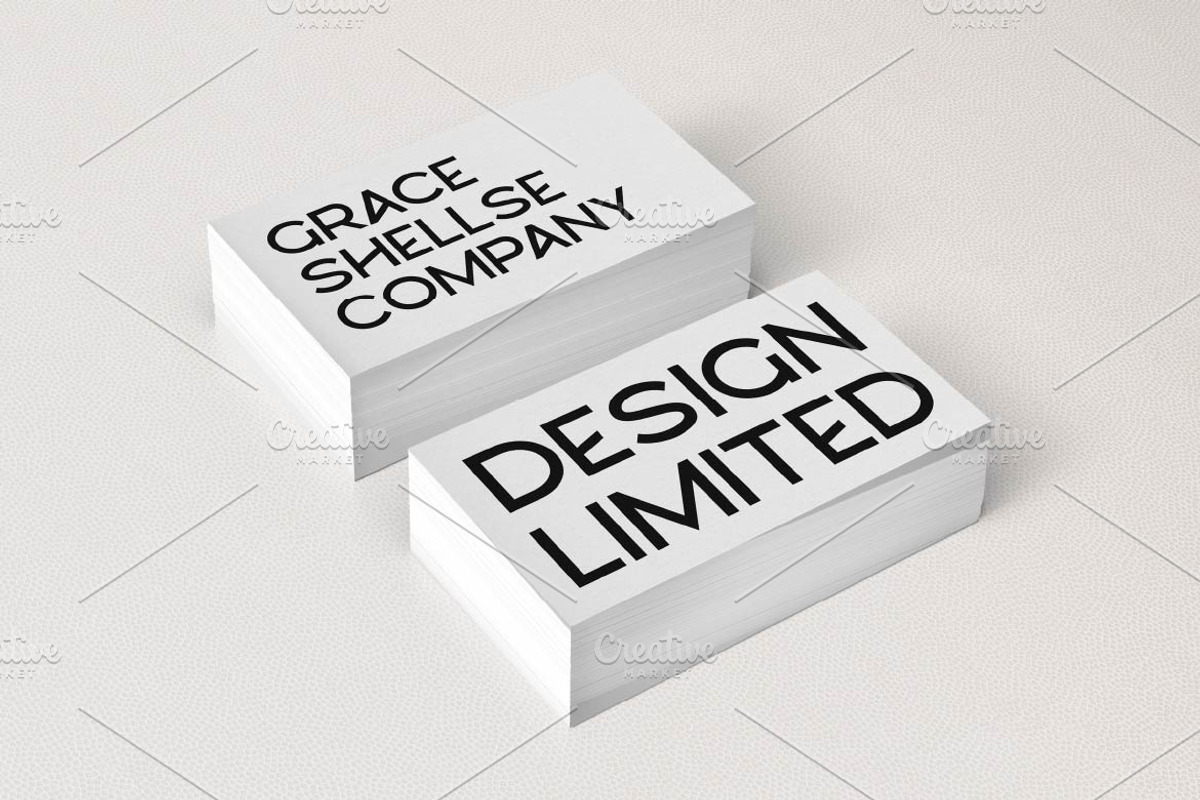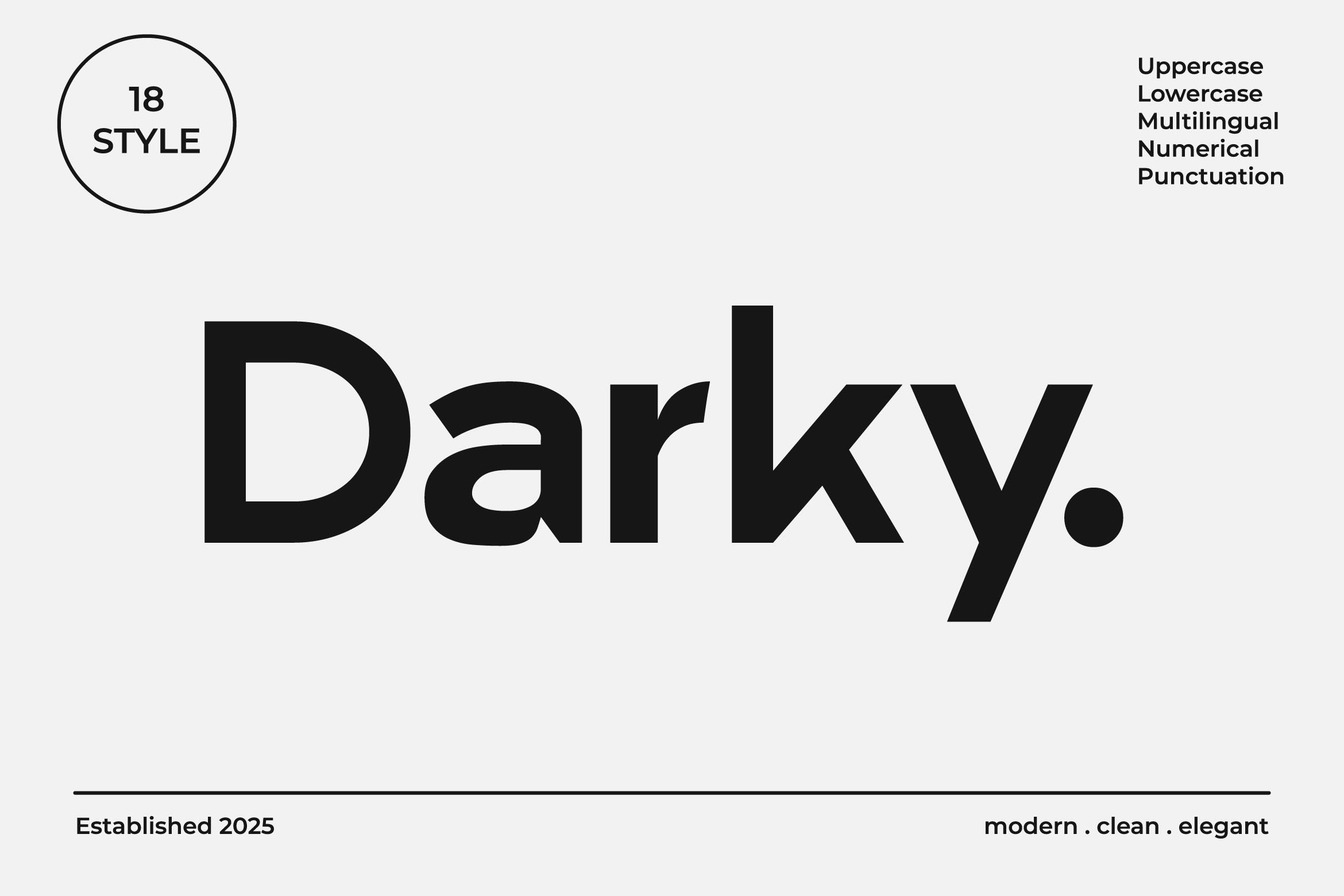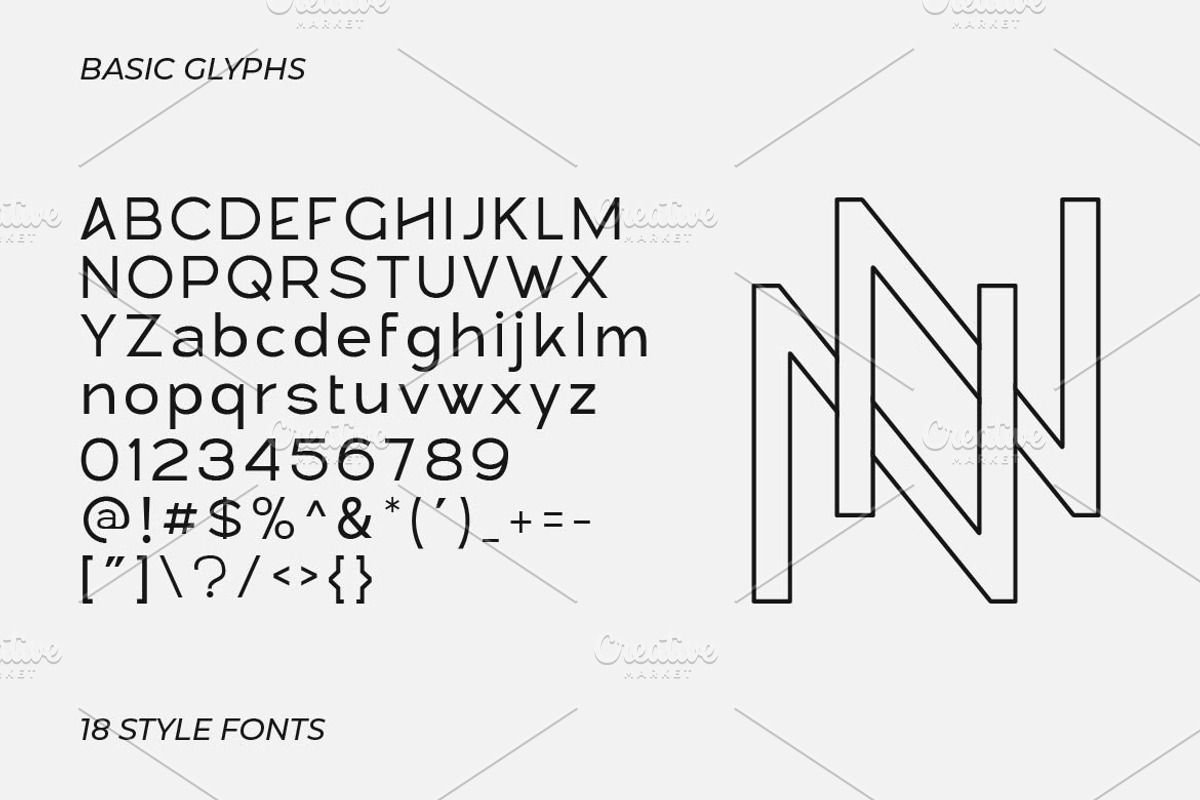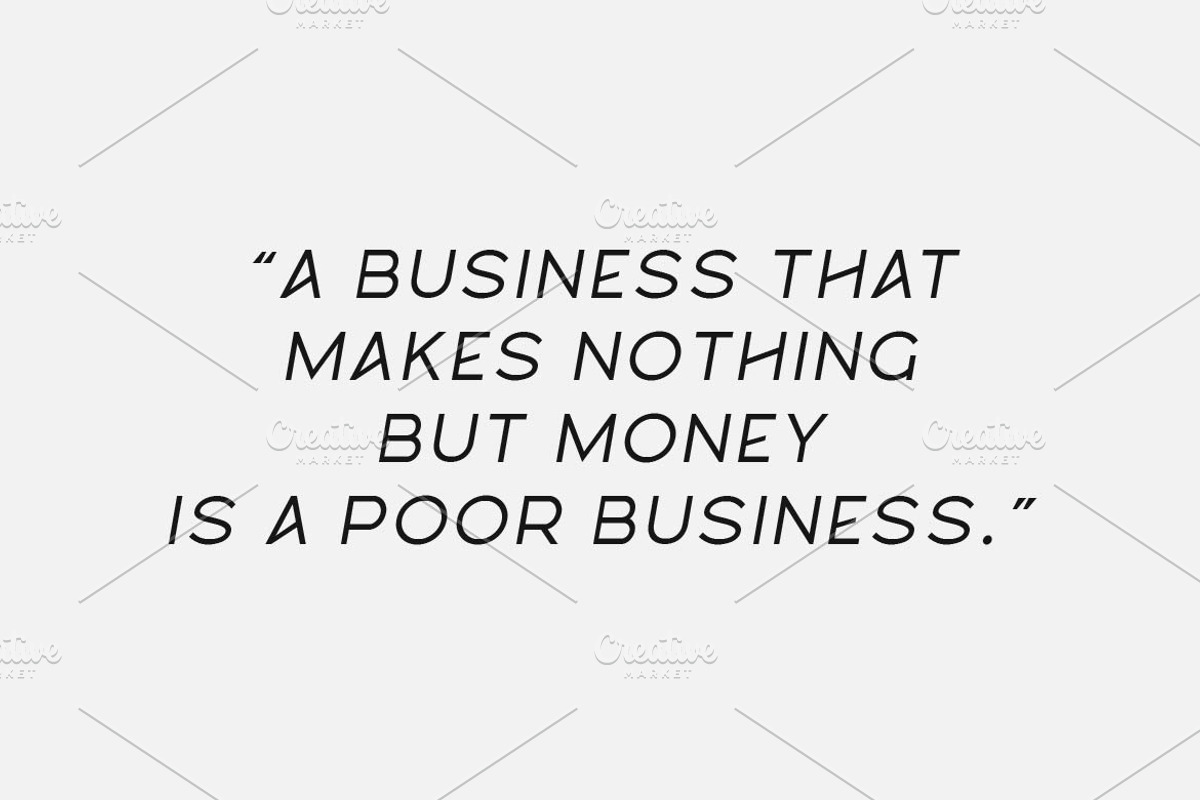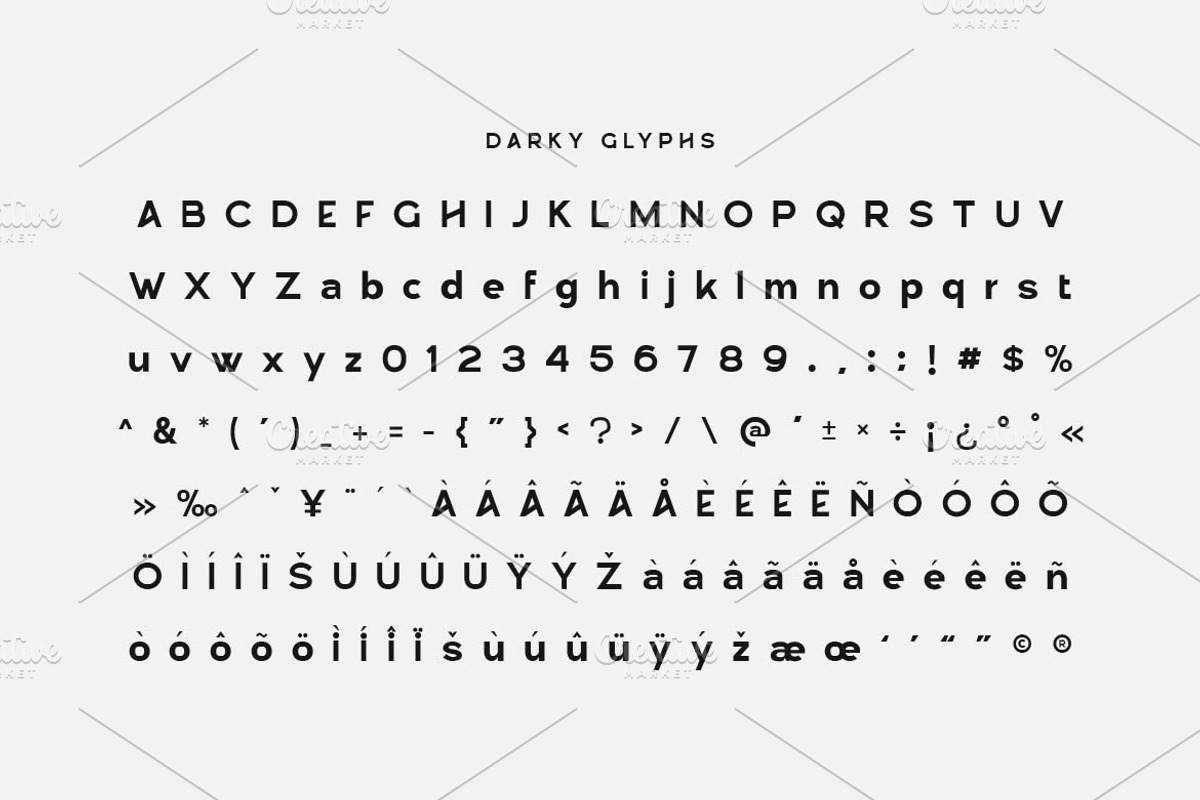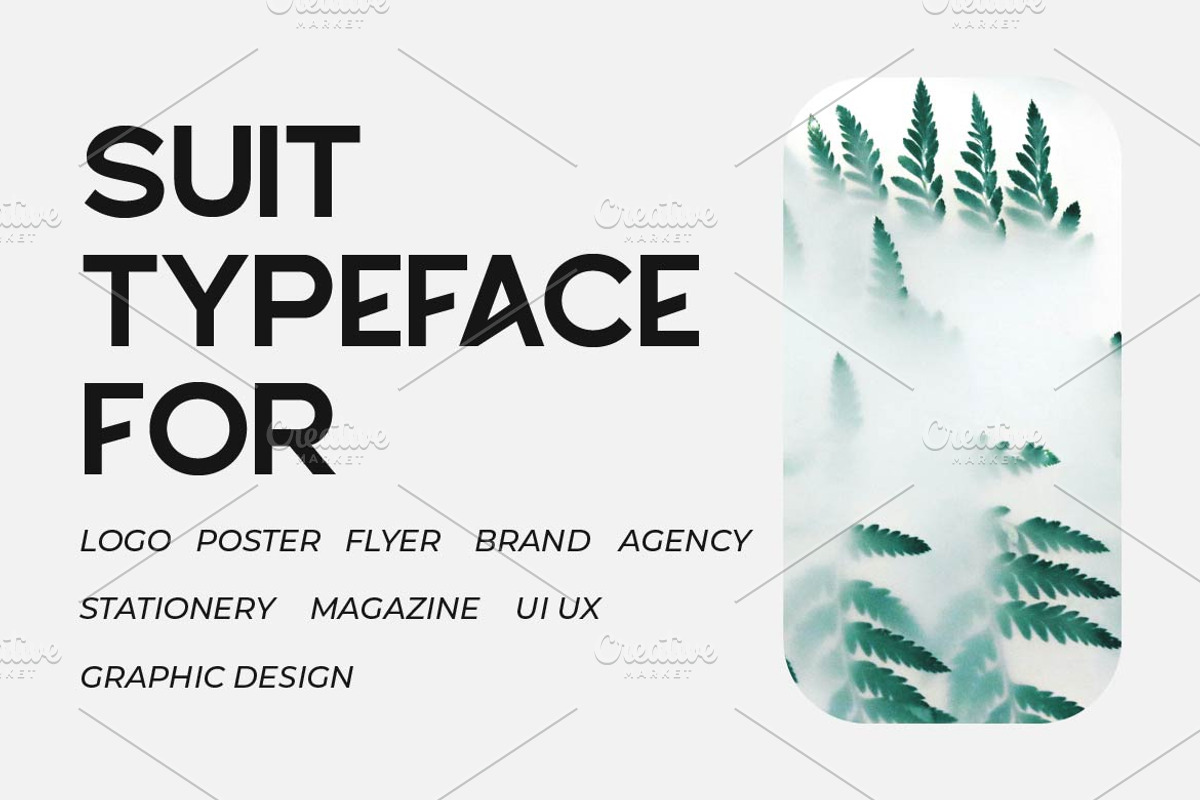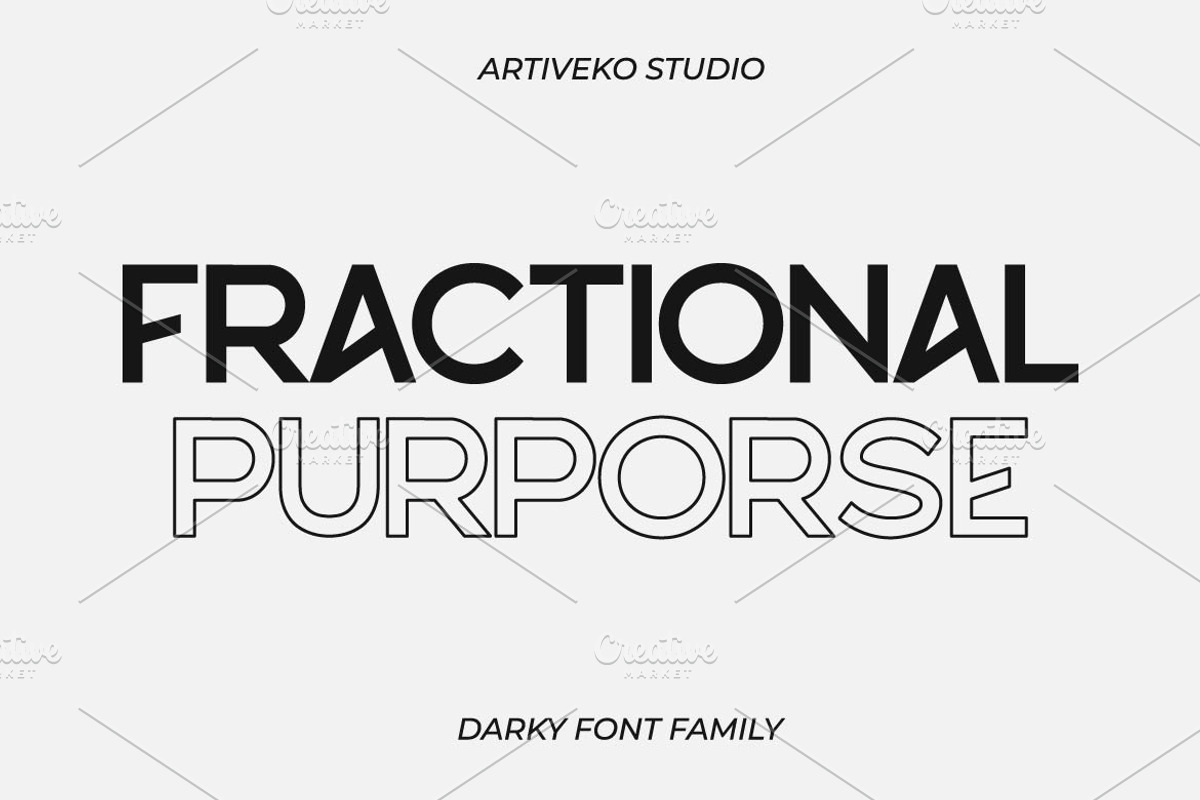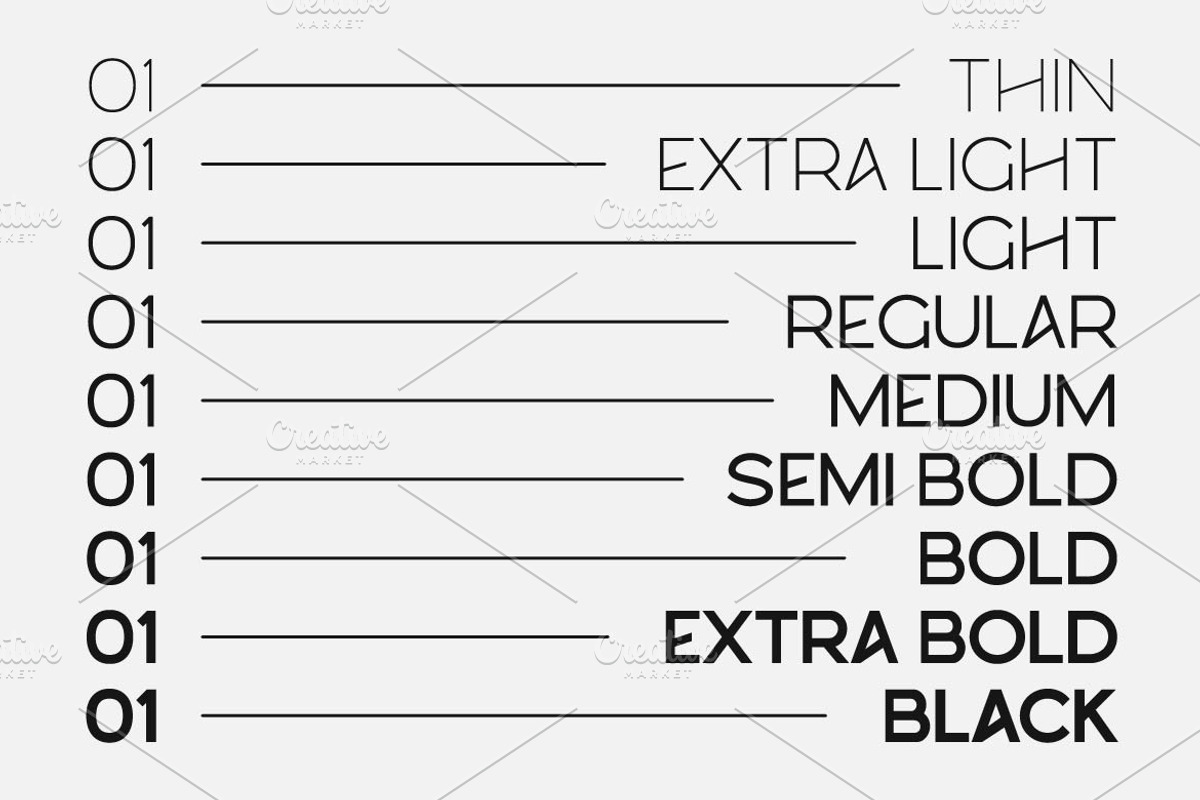
Darky Modern Elegant Font Family
Darky is a modern sans serif font family crafted to bring versatility and style into your design toolbox. With its clean construction and contemporary appeal, Darky performs brilliantly across various branding needs — from logos and packaging to website headers and editorial layouts. This font family includes multiple weights, allowing you to mix and match styles for maximum visual hierarchy and impact.